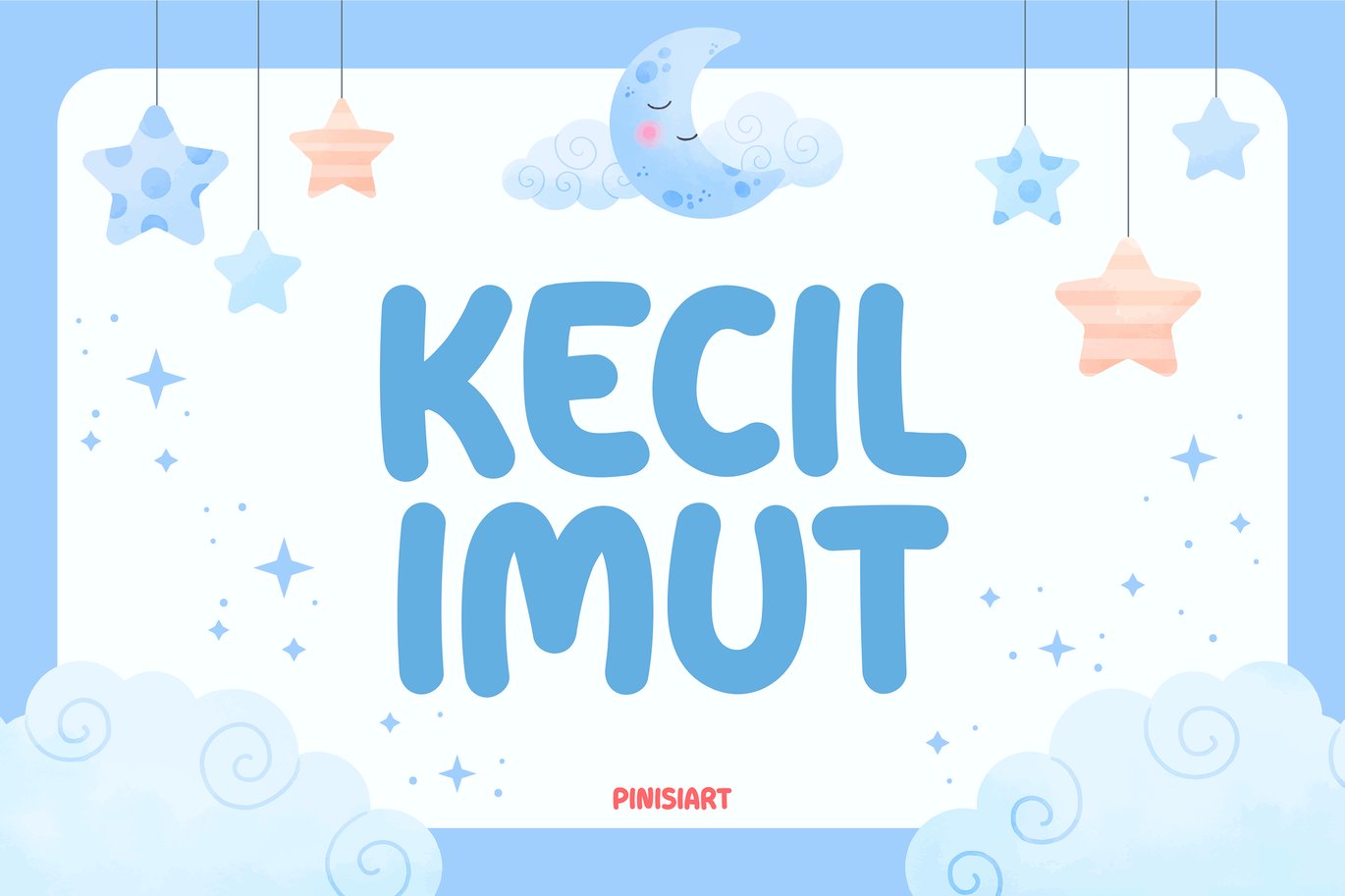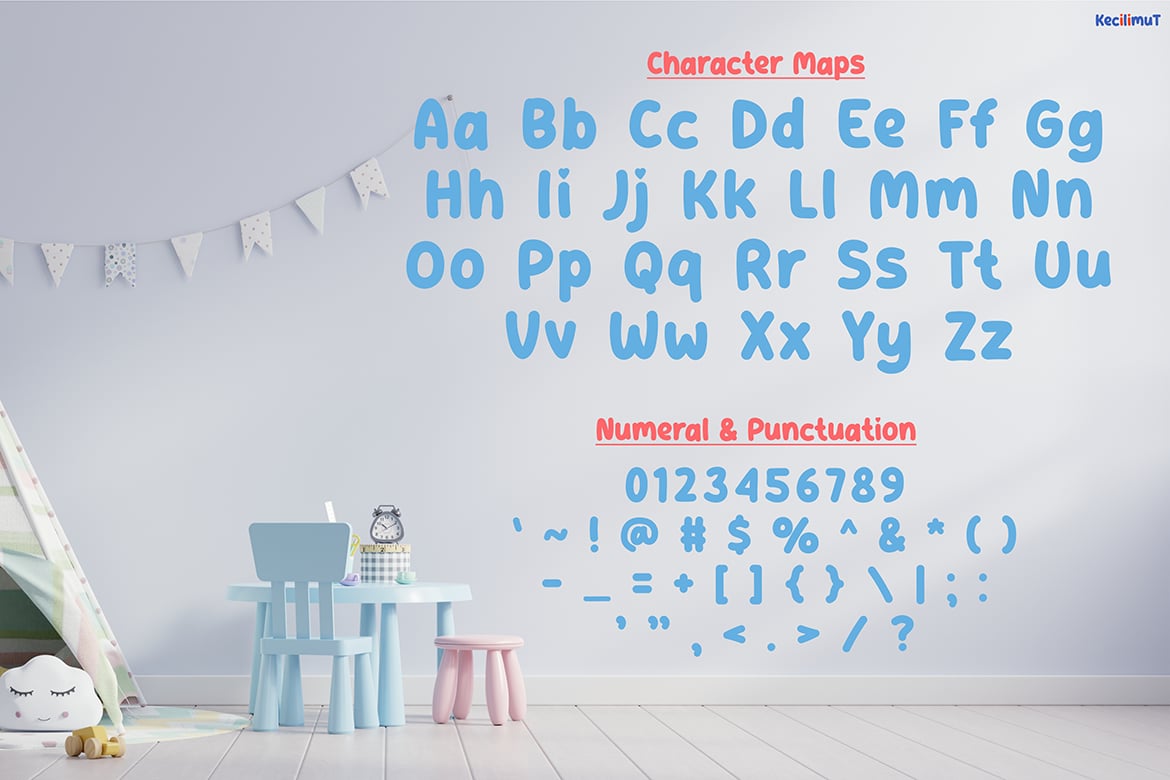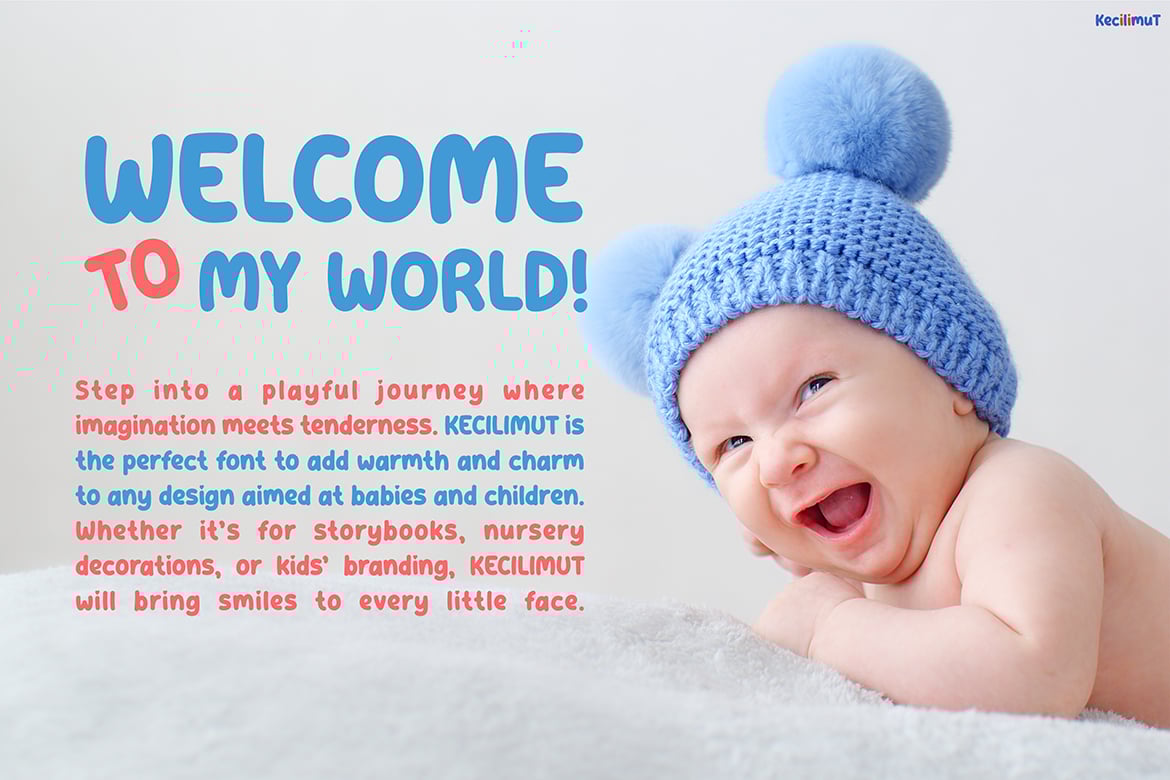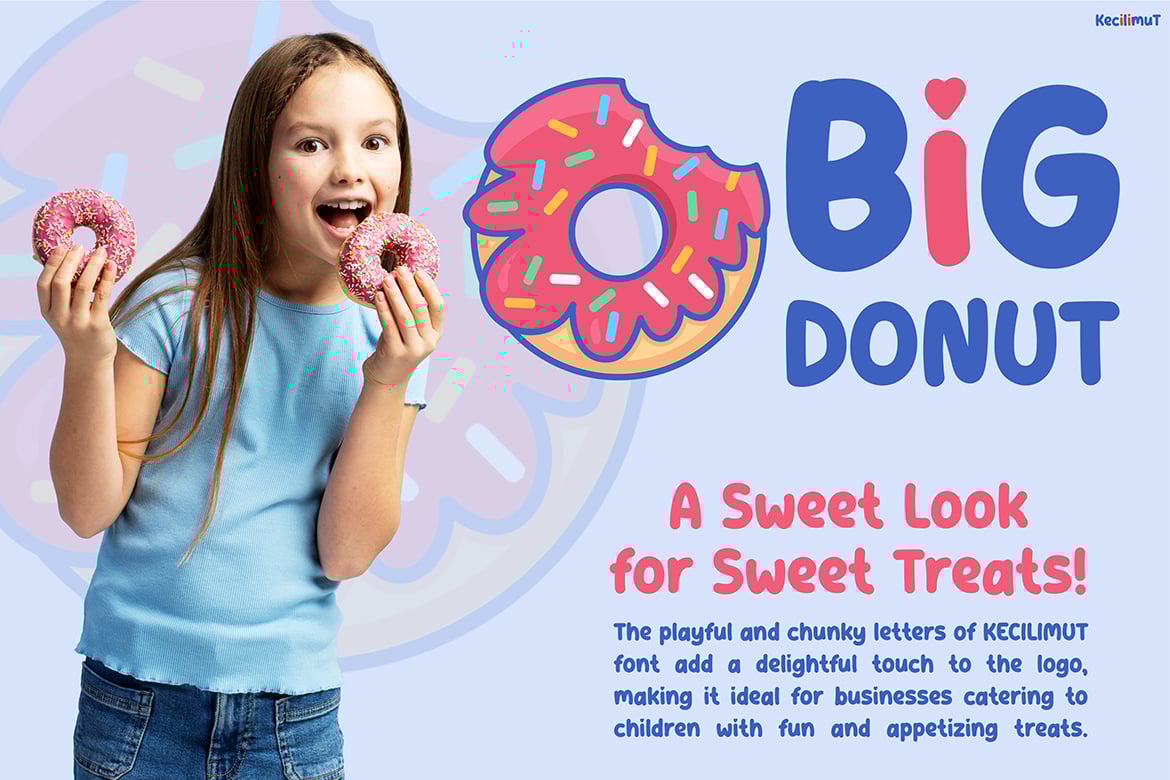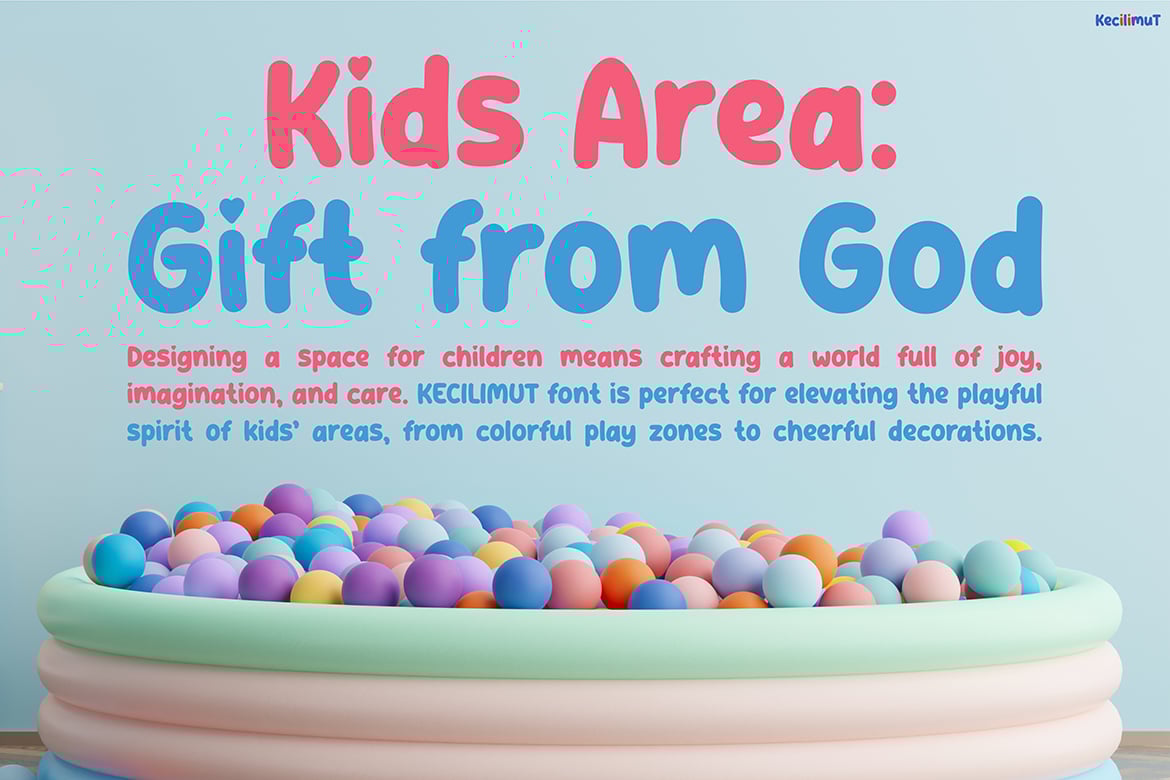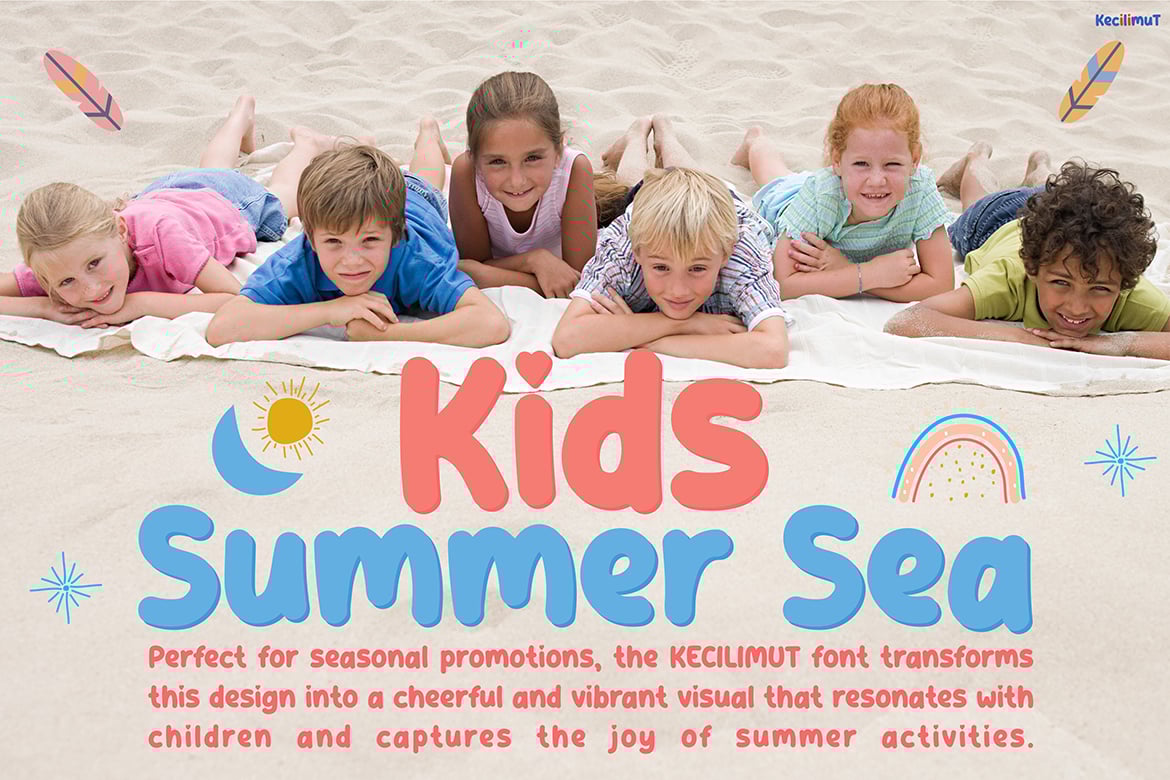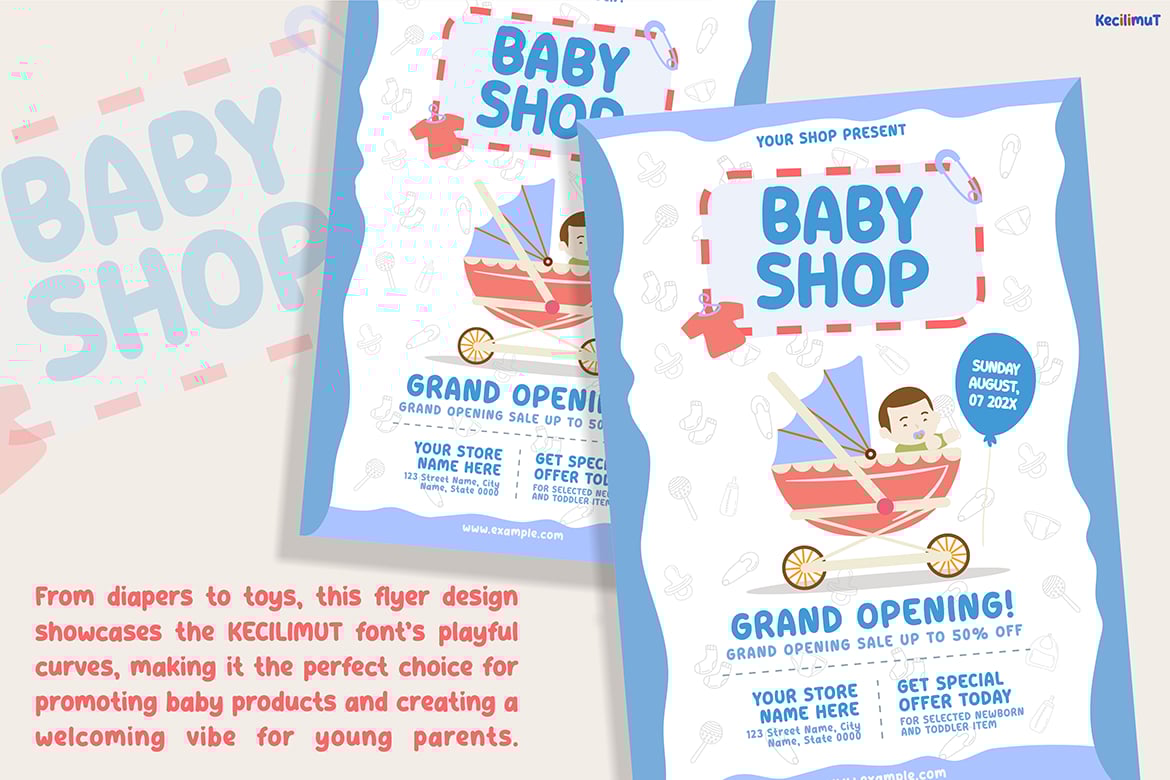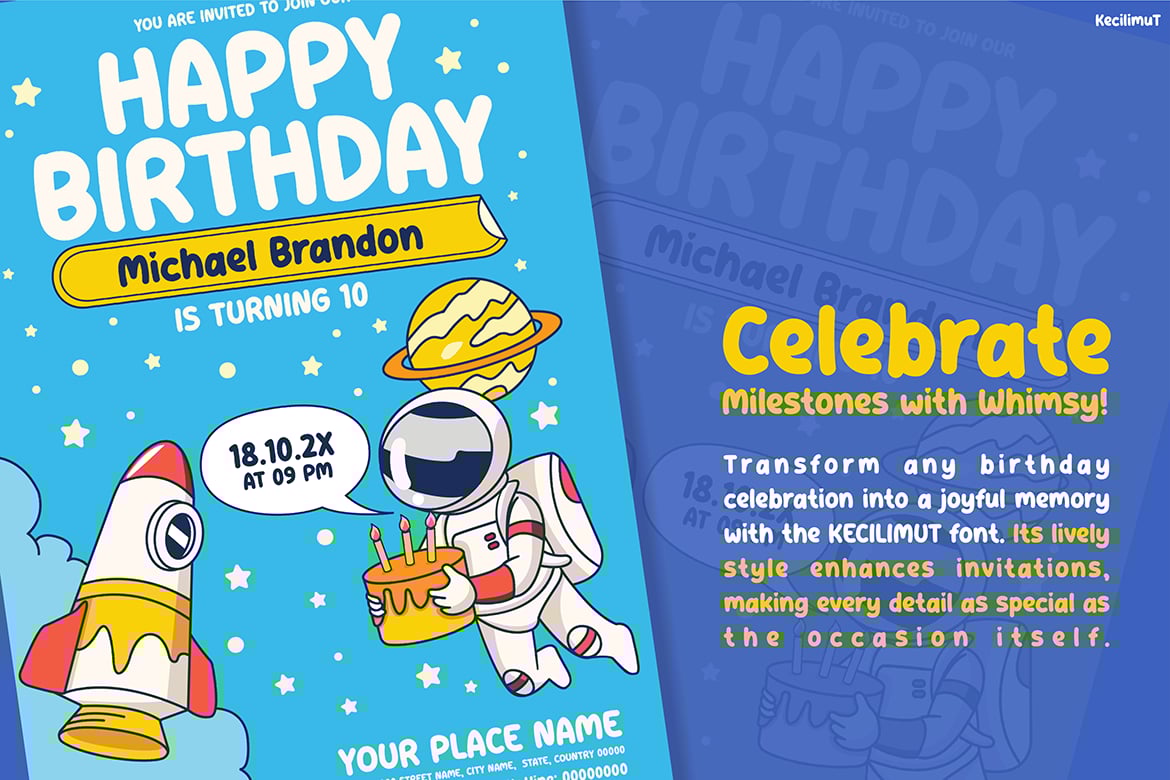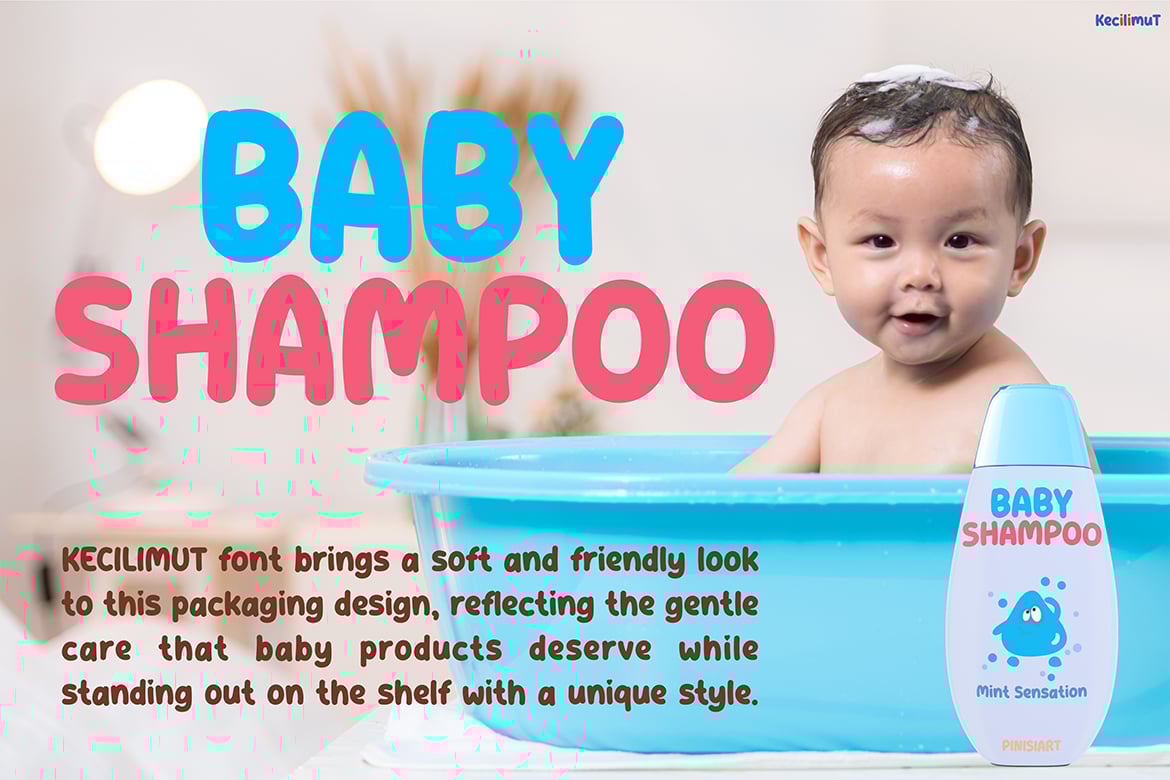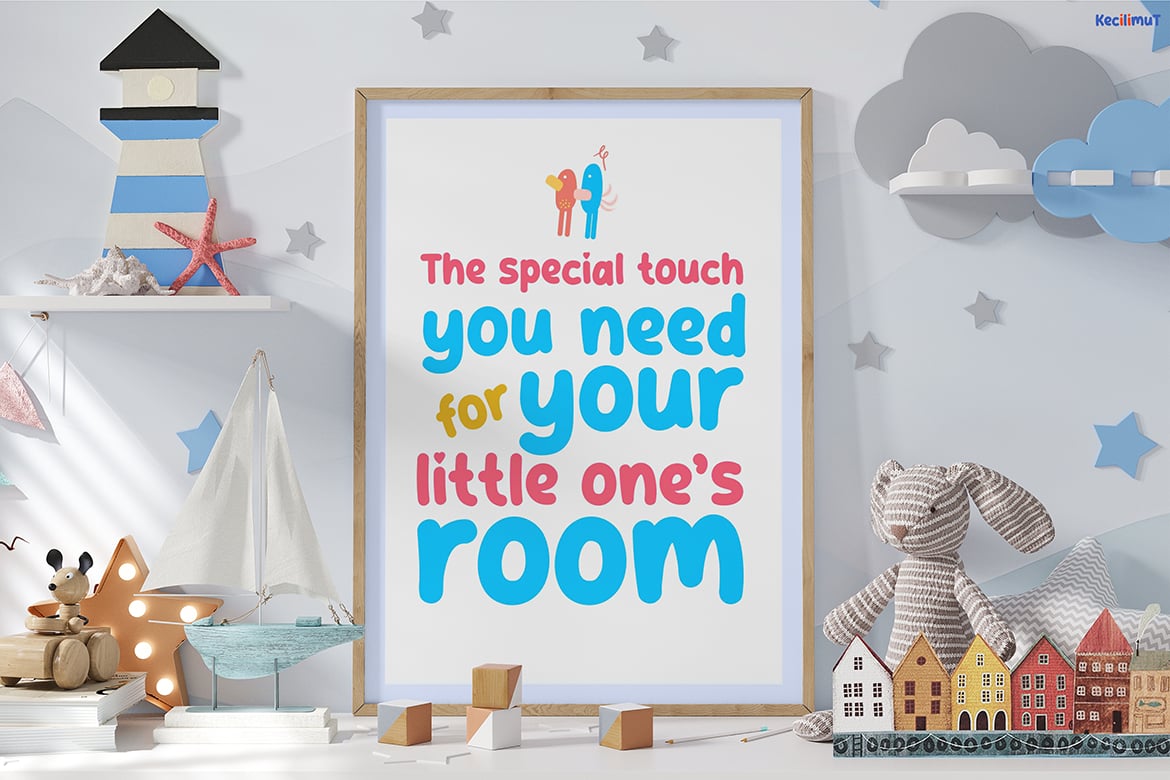
Cute Font – Kecilimut
KECILIMUT is a playful and cheerful kids’ font, designed to spark joy and creativity in every project. Its rounded edges and whimsical shapes make it approachable and fun, perfect for capturing the innocence and vibrancy of childhood. This font is ideal for any design aimed at younger audiences, creating an atmosphere of happiness and imagination.
Market Applications
Children’s Books & Storytelling
KECILIMUT is perfect for book covers, chapter headings, and illustrations in children’s storybooks, bringing stories to life with its playful charm.
Toys & Games Packaging
Use KECILIMUT to create colorful and exciting packaging for toys, board games, or educational materials, ensuring an appealing and kid-friendly design.
Posters & Invitations
Ideal for birthday party invitations, school events, or fun posters, KECILIMUT adds a joyful and vibrant touch to celebratory designs.
Branding for Kids’ Products
Whether it’s clothing, snacks, or stationery, KECILIMUT enhances logos and branding with a fun and youthful personality.
Educational Materials
From activity books to flashcards, this font adds a sense of engagement and creativity to learning materials for children.